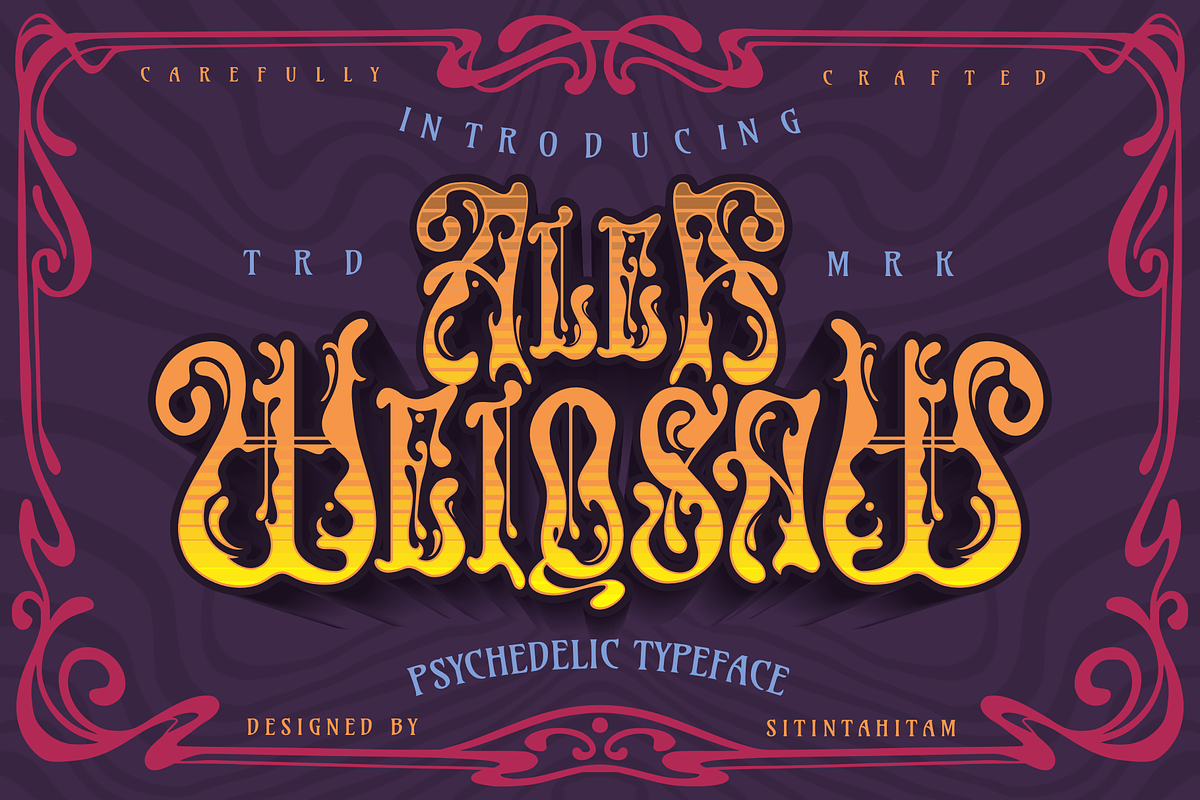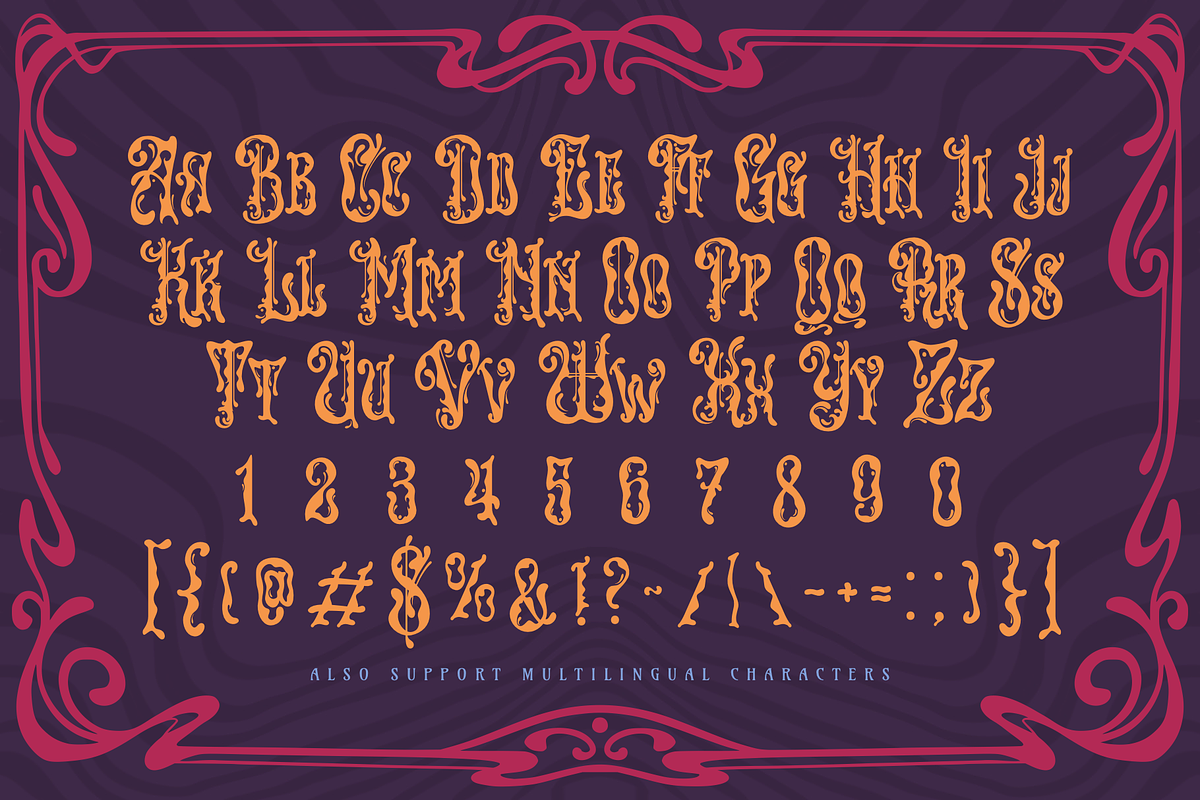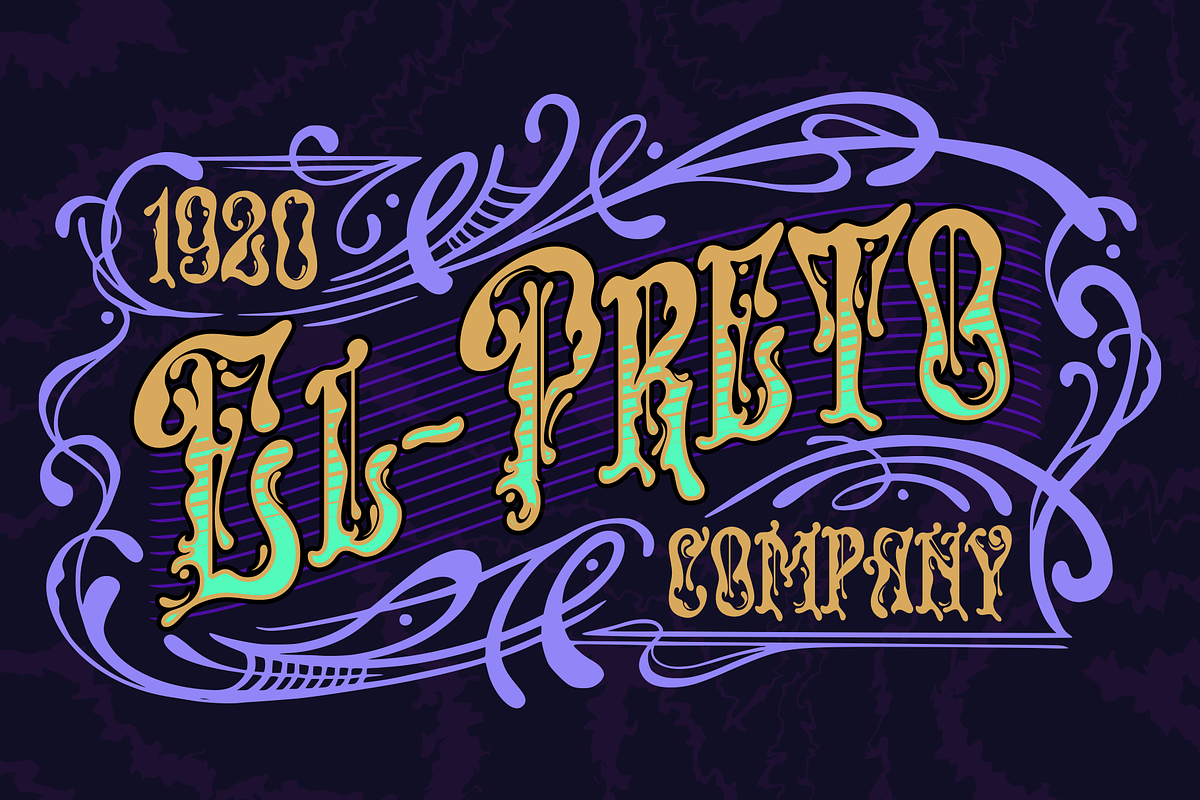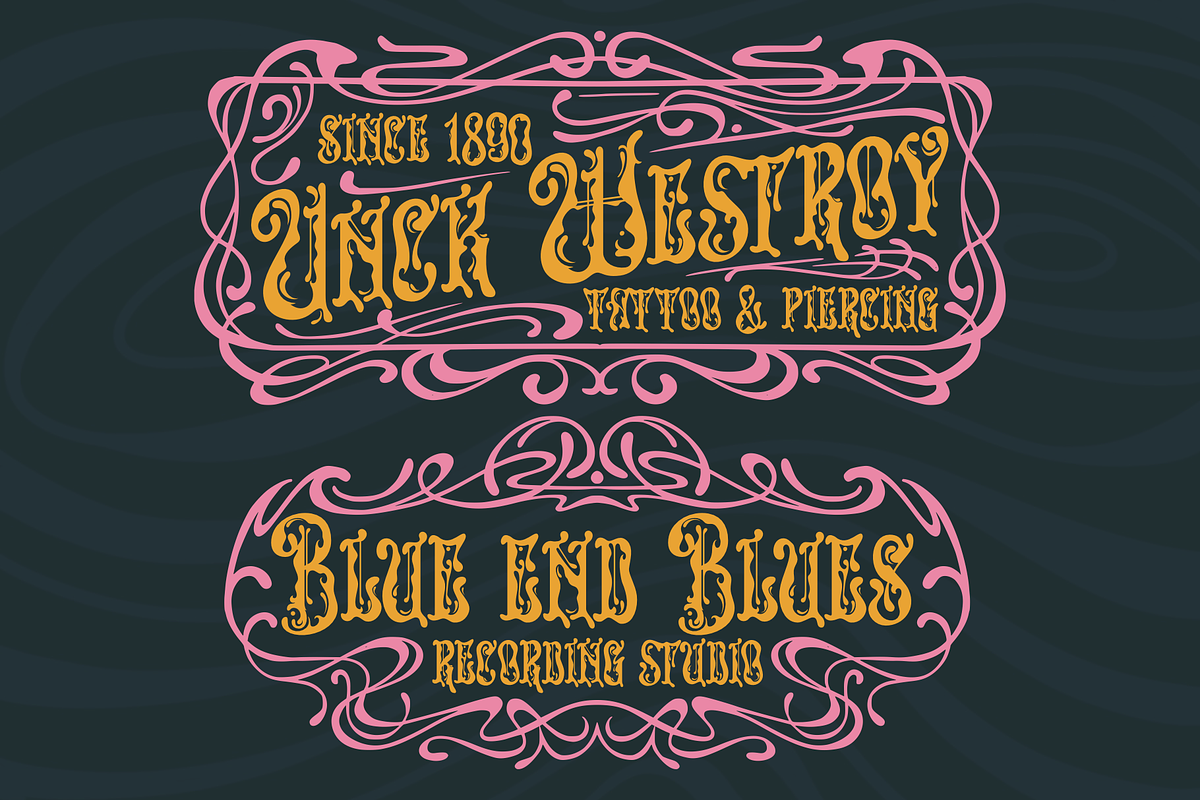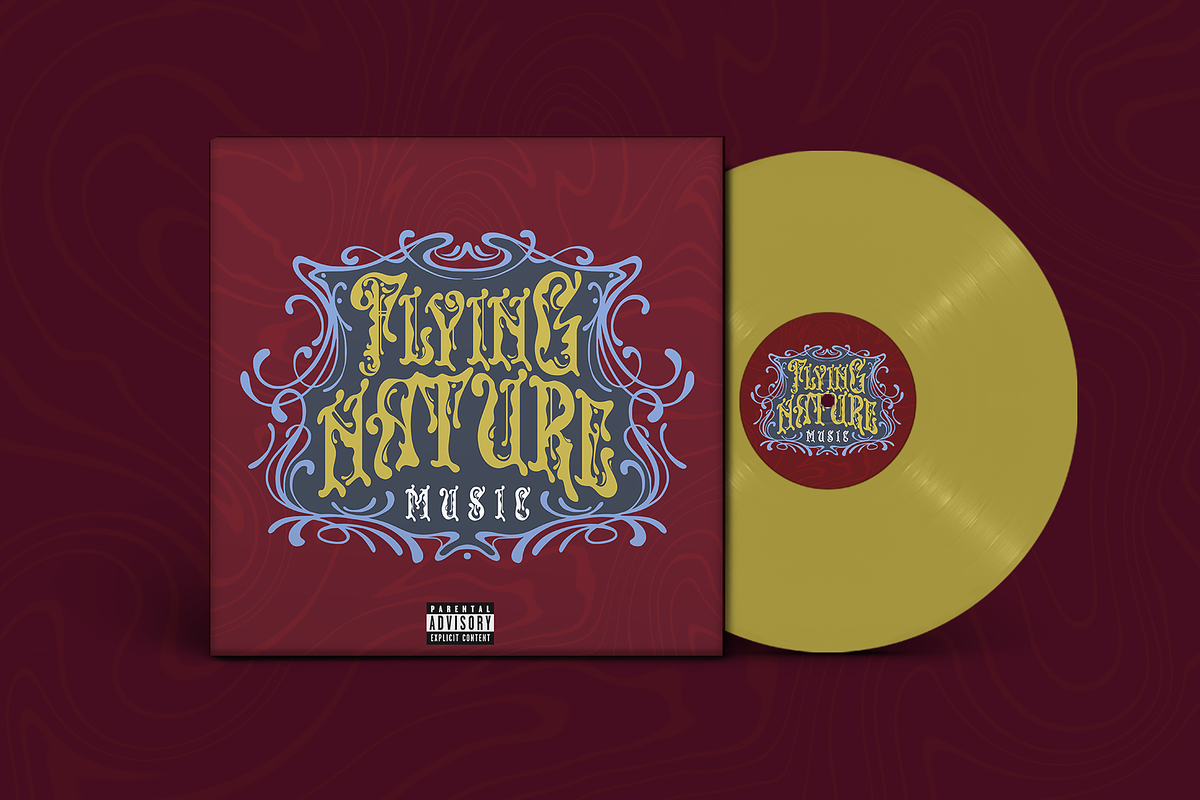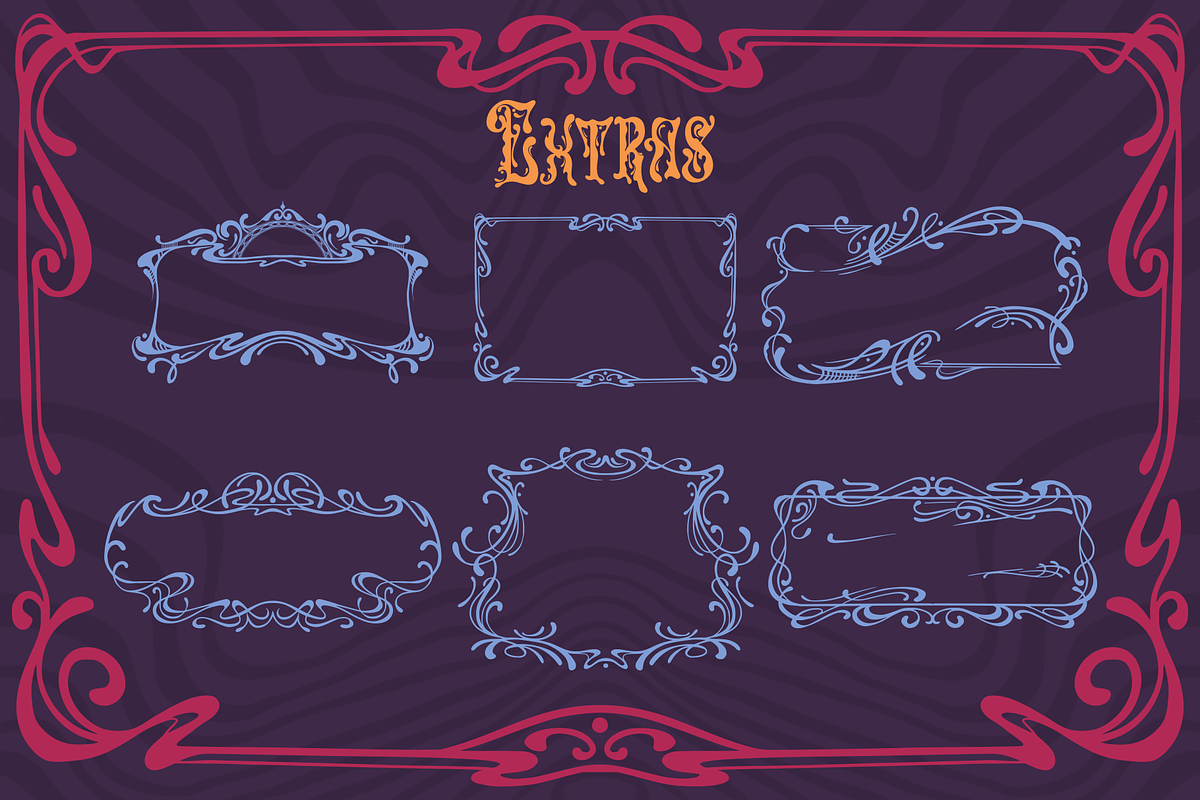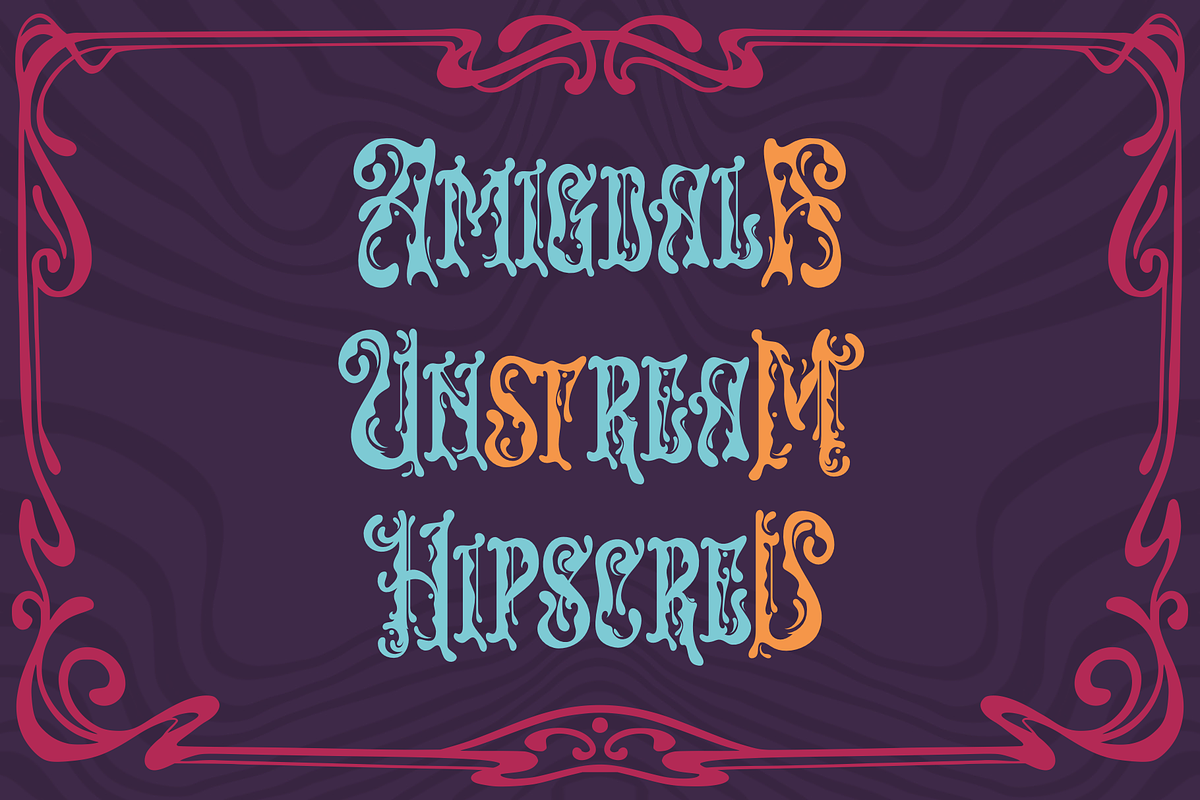
Alea Weiqsaw + Extras
Alea Weiqsaw inspired from victorian era, art neuveau, psychedelic art and music. This font comes with unique trippy style, it will be interesting to make a headlines, packaging design and vintage style logotype like a cover album, sign logotype, vintage headline. Alea Weiqsaw also bring some alternative glyph and unique ornament. This combination allows you to easily develop awesome designs.